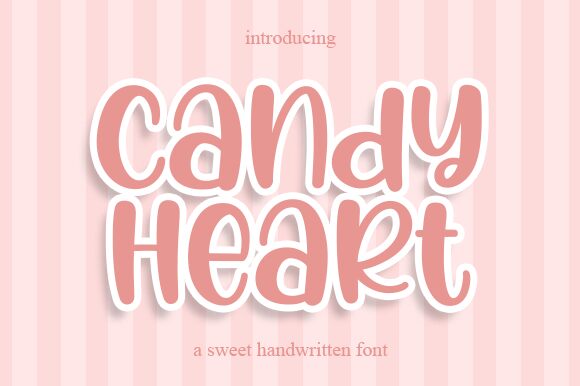
Candy Heart
Say hello to Candy Heart, the playful display font designed by Graphix Line Studio. With its whimsical cartoon style and handwritten touch, this bold typeface is perfect for a wide range of creative projects. Use it to add a fun, lighthearted feel to children's books, greeting cards, logos, and more. Its bold weight makes it stand out on posters and flyers as well. Whether you're designing for a candy store or a Valentine's Day campaign, Candy Heart is sure to sweeten up your project. Get creative with this delightful font today!